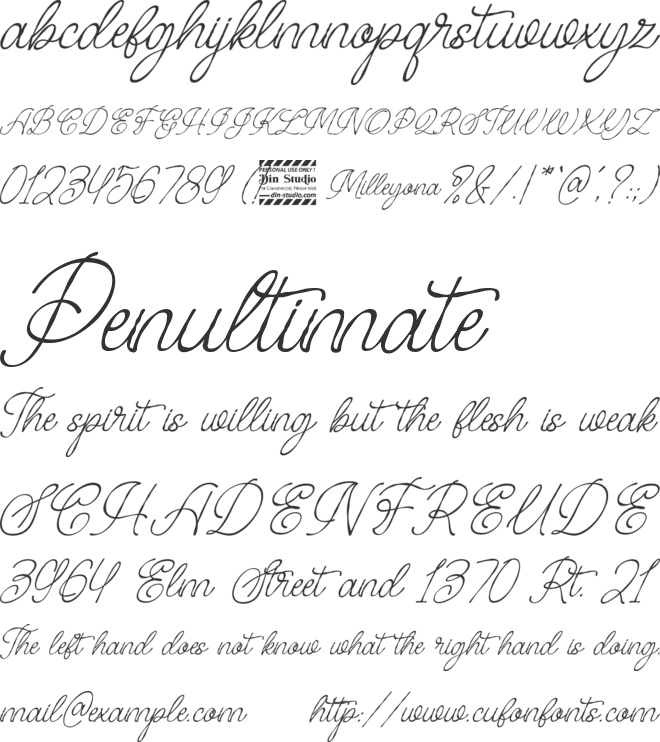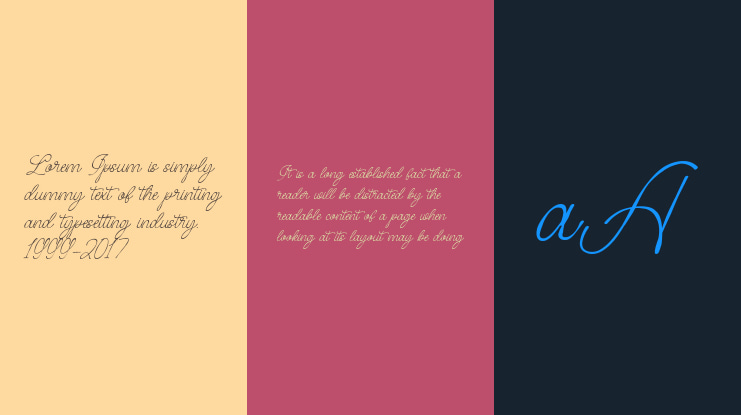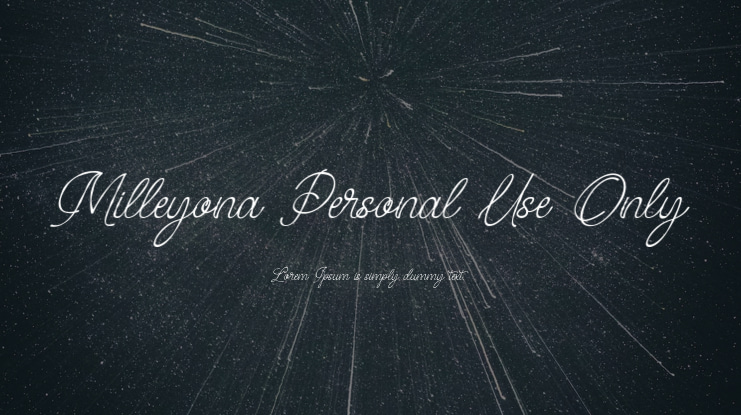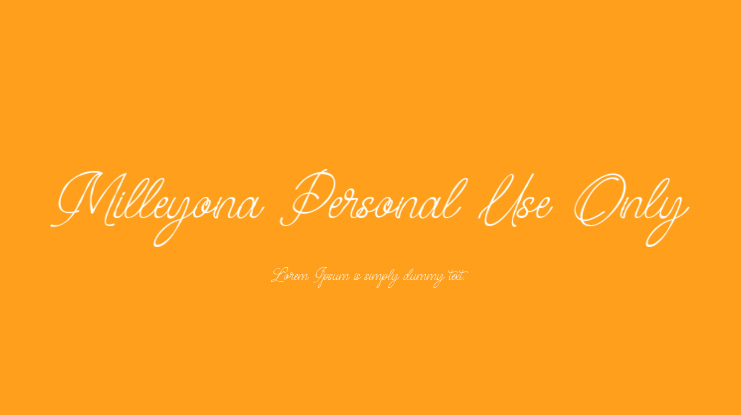
Milleyona is a delicate and elegant handwritten font that exudes sophistication with its thin weight. The connected letters flow seamlessly, creating a smooth and continuous script. With fairly consistent letter proportions, Milleyona offers a harmonious and balanced appearance.
• Ligatures
• Stylistic Sets
• Multilingual Supports
• Numerals and Punctuations